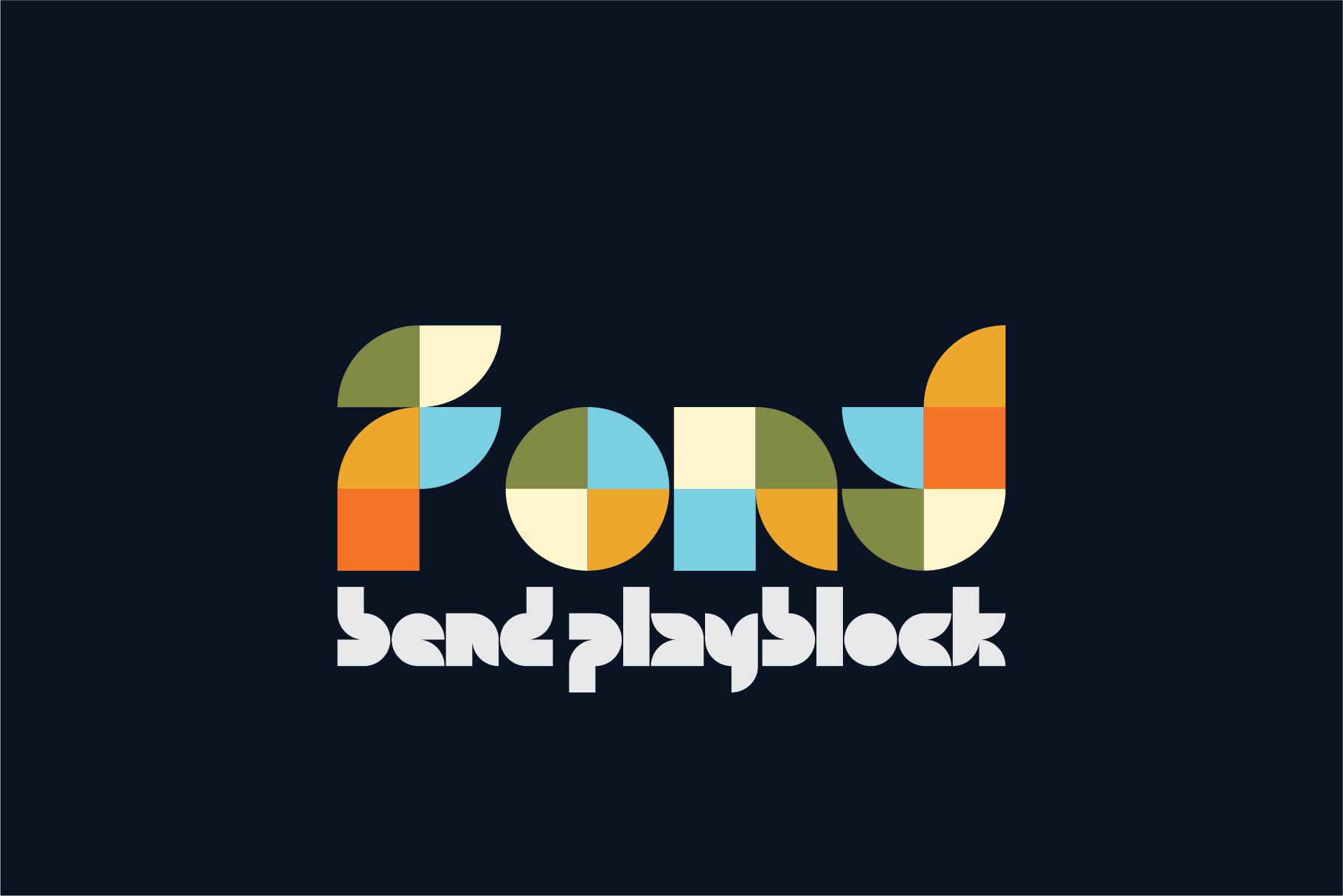
Bend PlayBlock | Bold Display Font
A while back I designed an alternate logo for my personal logo and I made it with these two shapes. It was more about the color palette than anything else but it lead to this simple but fun abstract type. I hope you enjoy